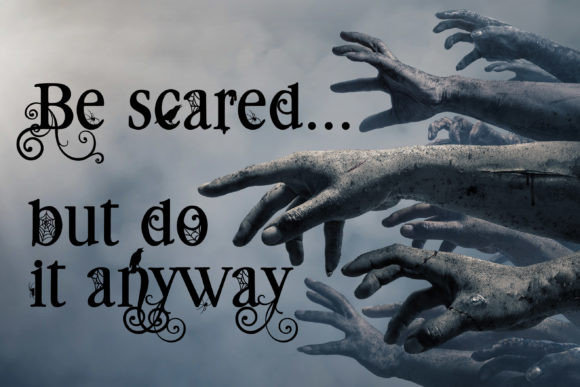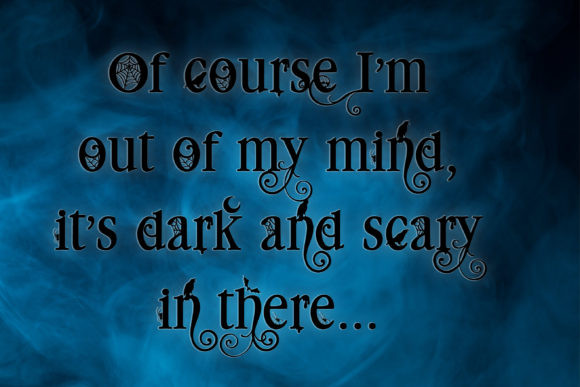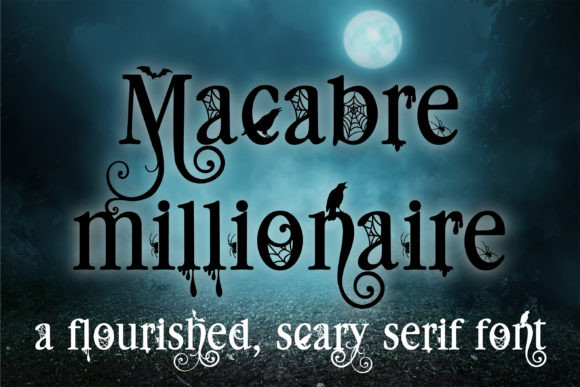
Macabre Millionaire Font
Macabre Millionaire is the perfect font for all things Halloween. Take your crafting project to the next level with this stunning font!